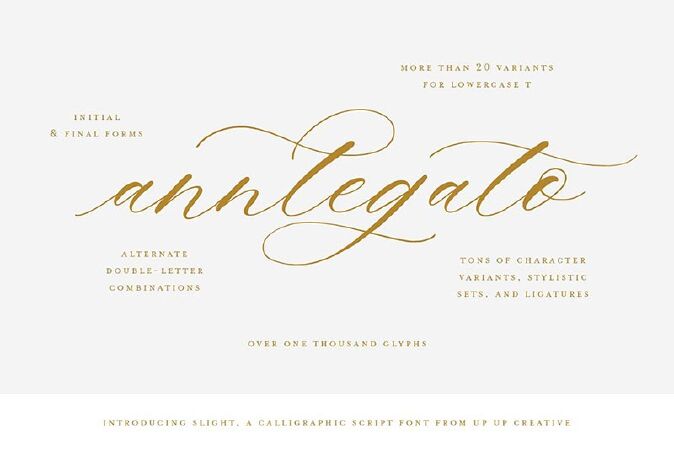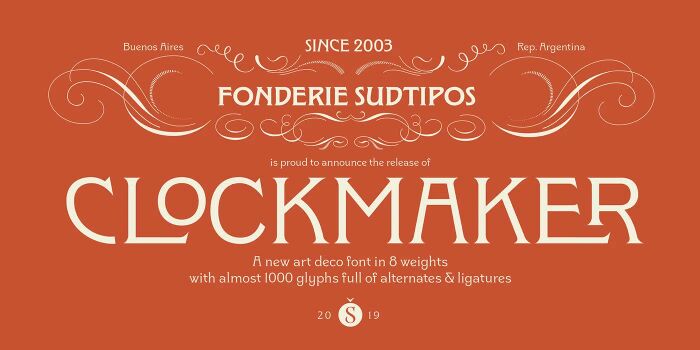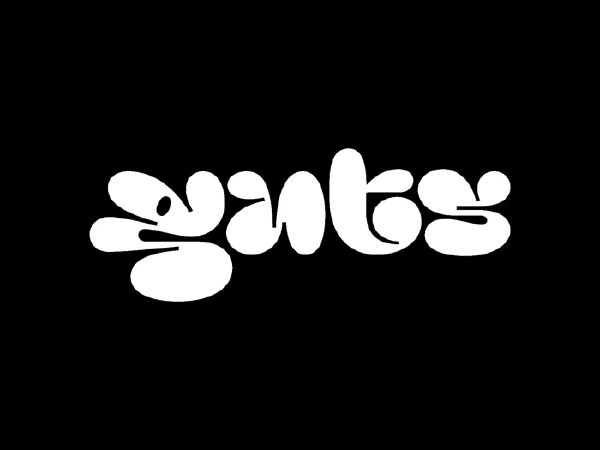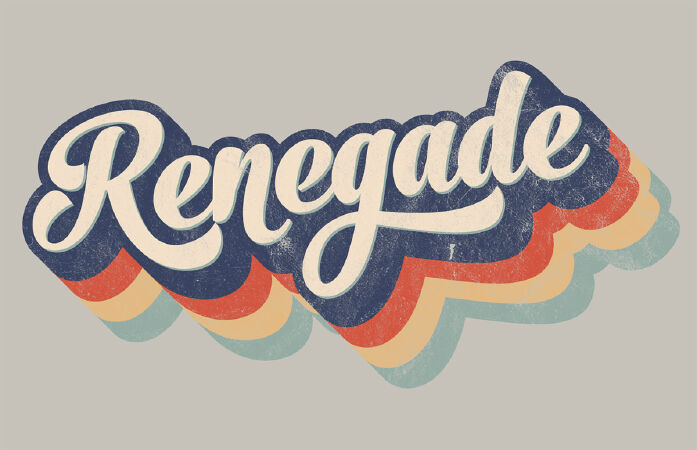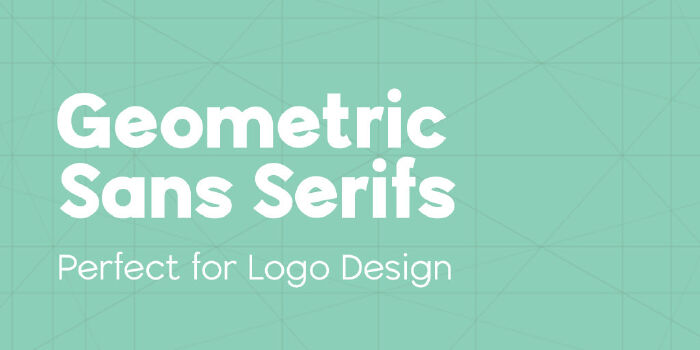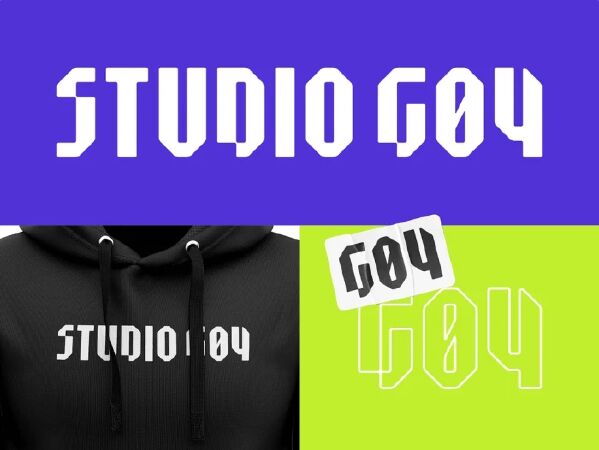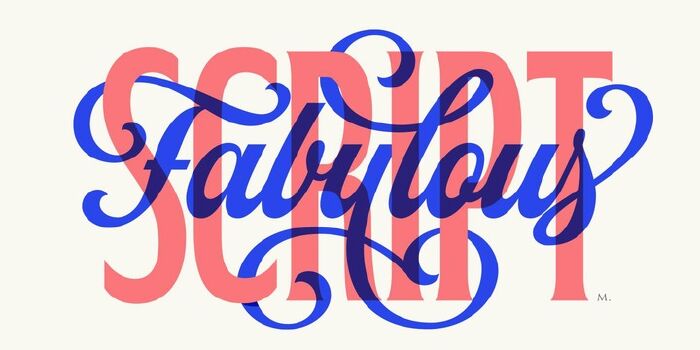
Top 10 hottest font trends in graphic design in 2022
Typography is such an important element in design and communication in general. Because it is not only the actual message that is important in conveying a certain message, but also thinking about the kind of style in which the message is carried out. In the same plain text can give a completely different message when it is set in different font. So you need to take care to choose the font style wisely and determine which type is the best fit for your brand or design. The article is some of the hottest fonts in graphic design 2022. Let's find out with Top Share!
1 Neue Nouveau
Hot font trend. Image source: Creativos Online
This style gives your design a modern nostalgic feel. Often used in combination with natural earth tones and floral ornaments. it just takes you to the Renaissance. The combination of natural curves, sharp angles, and subtle serifs make it fun to look at and still give your design a unique feel.
2 High Contrast Serifs
Trendy fonts stand out. Image source: Behance
One typography trend that has been gaining popularity over the past few years is 'High Contrast Serifs'. After a long period of minimalism and the explosion of Sans-Serifs, many designers are starting to give their designs some extra character by using high-contrast serifs. The great contrast of thickness between these typefaces gives it a solid sense of quality and a premium product experience that would be much harder with modern sans serif typefaces.
The greater the contrast, the more interesting it looks, and pattern designers around the world are certainly pushing the boundaries of what is possible to create entirely new looks.
3 Script fonts
Font trends 2022. Image source: SaDesign
Script is an ever-evolving font style with a lot of possibilities to use. Whether you want to give it a prominent role in your design by applying it to your product names, campaign titles or branding, you can also use Script for smaller placements that give Give your design a similar look.
4 Flux
New font trends. Image source: jukeboxprint.com
A style built to last and provide the right tools to work on digital work. Now the world is changing rapidly technologically and all the new possibilities that come with that. There needs to be a typeface that can adapt easily and give the right visualization for the moment.
Mutable fonts are a big part of this style and it's now possible to change font widths and widths manually. You no longer have to choose between pre-made font styles in a typeface but make full use of the space you have and fill the entire screen.
Extended letters, cropped forms, and curvaceous baselines, this typeface gives the right vibe needed to kick-start this new phase.
5 Modern Organic
Trending beautiful fonts. Image source: jukeboxprint.com
Typography is becoming more and more expressive to stand out from the rest or to give a certain vibe to your brand or design. And in case you want to achieve that without using overly crafted organic fonts or handwriting that detracts from a certain logic behind your typography, then this Modern Organic style could be the one for you. for you.
Readability is an important factor for typography, but in certain cases you can sacrifice this a bit to create headlines that grab the viewer's attention and allow the reader to explore. what it says on it. While not recommended for traffic signs, it works perfectly for modern, creative brands or events with a younger audience.
6 Retro Fonts
Trending fonts for graphics. Image source: Spoon Graphics
In modern life with fast pace and hustle, people tend to reminisce the past through works of art. To meet the tastes of a large number of consumers, a series of classic-sounding products and services have been introduced to the market. Therefore, designers have quickly caught up with the trend to offer products with Retro style that remind customers of fleeting nostalgia in the modern rhythm of life.
The retro house design style originated in Northern Europe in the 50's and has brought change all over the world. Radical modern ideas have changed the design style. The retro interior decoration of this decade is based on classic design principles so it looks similar to today's design style.
Retro style was popular in the 1950s - 1970s, it carries nostalgic values, classic beauty and tenderness. Retro style represents sincerity, simplicity, but modern and charming in modern life. It can be said that retro is a style that is nostalgic but equally modern.
Retro style is an expression of luxury, style and fashion, its charm is created from aristocracy in the nostalgia and wildness of nature. Therefore, the main colors in this style are sepia tones, sweet orange, blue, ... combined with bold and prominent colors such as young green, dark yellow, etc.
This font style also comes in varying degrees of boldness in terms of number of curves and modifications, so choose wisely what works best for your brand. You can choose a font with a unique, curved tail at the end of the lowercase 'j', or a full font.
Fonts also play a huge role in graphic design and print. To have an impressive design and attract the attention of viewers, choose an appropriate typeface and font. If you're a designer, you definitely need to keep an eye on the hottest typefaces, updates, and the right apps.